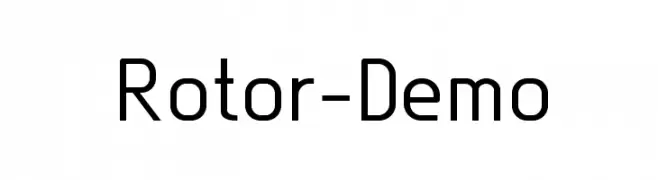
A bold, gothic-inspired font with sharp, angular edges and a tribal aesthetic.
An oblique, angular serif font with a dynamic and energetic style.
A playful and informal handwritten font with dynamic letterforms.
A clean, modern sans-serif font with uniform, geometric letterforms.
A modern, clean sans-serif font with excellent readability and uniform design.
Hand-drawn, doodle-style font with playful illustrations.
A playful, rounded font with a youthful and energetic vibe.
Hand-drawn, childlike doodle font with playful illustrations.
A dingbat font of hand-drawn children's drawings and playful scenes.
A playful, hand-drawn font with tall, narrow letters and a whimsical style.
A playful, hand-drawn font featuring whimsical stick figures and doodles.
A whimsical, cartoon-like font with playful, exaggerated characters.
A pictogram font with playful, child-themed illustrations.
Whimsical, childlike dingbat font with playful illustrations.
Whimsical dingbat font with playful children's illustrations.
A playful, rounded font with a childlike, handwritten style.
A playful, flowing script font with smooth, continuous strokes and rounded edges.
A decorative font made of cartoon children forming each character.
A decorative font made of cartoon children forming each letter and symbol.
A playful, hand-drawn font with cartoon-like characters.
Whimsical silhouette illustrations of children, angels, and animals.
A bold, playful font with a whimsical, hand-drawn style.
A classic serif font with a modern touch, featuring elegant curves and flared serifs.
A bold, geometric sans-serif font with a monospaced appearance.
An ornamental display font with each character depicted as a unique labyrinth or maze.
A pictorial, artifact-inspired decorative font with unique glyphs for each character.
Abstract, ornamental symbol font with geometric and organic motifs.
An abstract, artistic font with whimsical, illustrative characters.
An artistic and abstract font with unique illustrations for each character.
An artistic and whimsical decorative font with abstract character designs.
A geometric and abstract decorative font with high contrast and dynamic style.
A decorative, geometric font with bold, angular shapes and unique patterns.